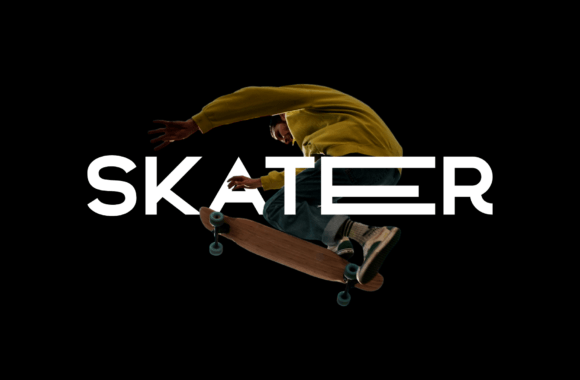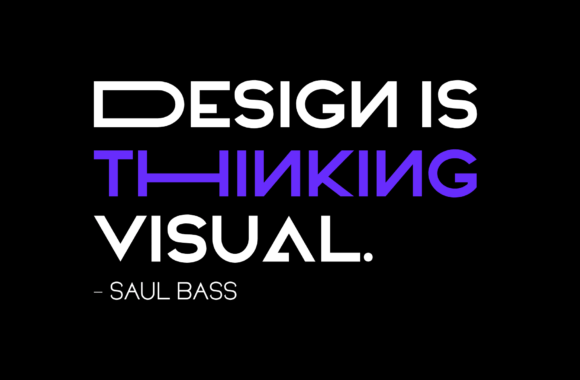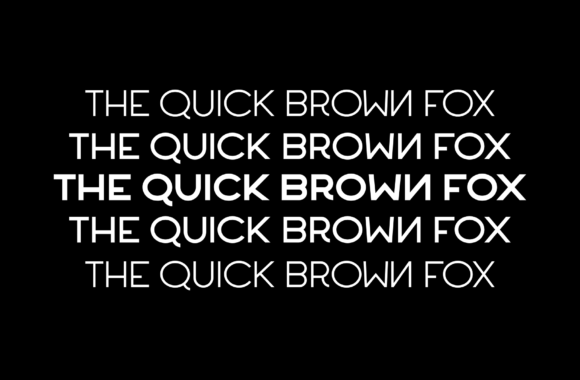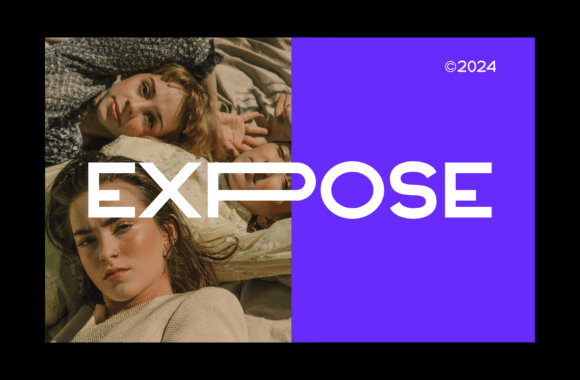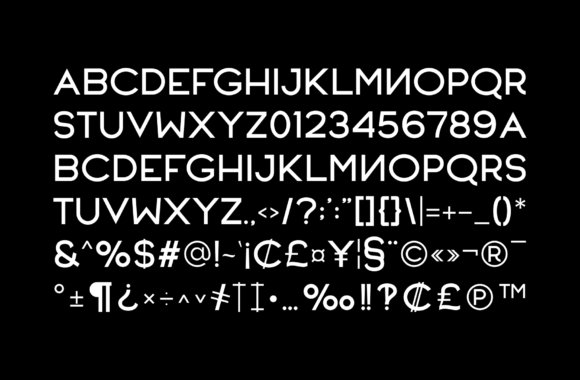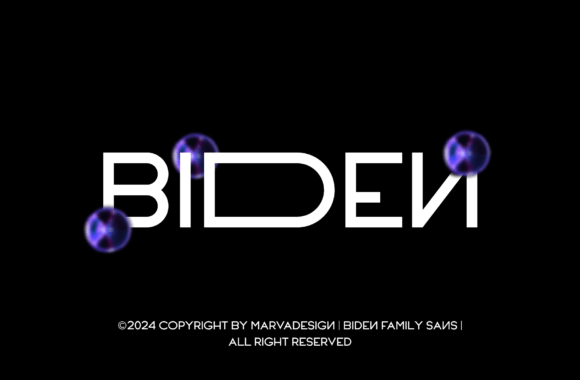
Introducing Biden Font: A Sophisticated Sans Serif for Modern Designs
In the world of typography, fonts play a crucial role in conveying messages, expressing emotions, and creating a lasting impression. For designers and crafters, finding the perfect font can be a daunting task. However, with the introduction of the Biden Font, a distinguished sans serif font, the search is over. This exceptional font combines the quintessential features of Futura with an added dash of sophistication, making it an ideal choice for modern designs.
A Font with Versatility: Three Distinct Styles
The Biden Font breaks the mold with three distinct styles – Light, Regular, and Bold – each offering a unique design twist. This versatility allows designers to choose the perfect style to suit their project’s requirements. Whether you’re working on a sleek title, a body text, or a dynamic design, the Biden Font has got you covered.
The Light Variant: Soft, Understated Charm
The Light variant of the Biden Font is inspired by Modern Family and emanates a soft, understated charm. Its slender contours ensure clarity while projecting elegance, making it perfect for designs that demand a subtle modern aura. This style flourishes in contexts where a delicate touch is required, such as in sleek titles or slender text. The Light variant is ideal for designers who want to add a touch of sophistication to their work without overpowering the content.
The Regular Variant: Stability and Lucidity
The Regular variant of the Biden Font is an evolution of the Light style, with a ripple higher in thickness. This style furnishes further stability and lucidity, making it particularly effective in body text or content that needs a balanced emphasis. Despite its enhanced boldness, the Regular variant assures seamless readability, allowing designers to create content that is both visually appealing and easy to read.
The Bold Style: Dynamic and Modern
The Bold style of the Biden Font is derived from Modern Family and boasts bolder and thicker contours. This style preserves its core essence of modernity, making it the quintessential choice for dynamic titles or designs that require a bold statement. The Bold style is perfect for designers who want to grab attention and create a lasting impression.
Key Features of the Biden Font
• Versatility: The Biden Font offers three distinct styles – Light, Regular, and Bold – making it suitable for a wide range of design projects.
• Sophistication: The font combines the quintessential features of Futura with an added dash of sophistication, making it perfect for modern designs.
• Readability: The Biden Font assures seamless readability, even in its boldest style, making it ideal for body text and content.
• Elegance: The font’s slender contours and modern design ensure elegance and clarity in every design.
Why Choose the Biden Font?
The Biden Font is an exceptional choice for designers and crafters due to its versatility, sophistication, and readability. Whether you’re working on a sleek title, a body text, or a dynamic design, this font has the perfect style to suit your needs. With the Biden Font, you can:
• Create modern designs with a touch of sophistication
• Enhance readability and clarity in your content
• Grab attention with bold and dynamic titles
• Add elegance and charm to your designs
In conclusion, the Biden Font is a distinguished sans serif font that offers a unique blend of sophistication, versatility, and readability. With its three distinct styles – Light, Regular, and Bold – this font is perfect for designers and crafters who want to create modern designs that make a lasting impression. Whether you’re working on a sleek title, a body text, or a dynamic design, the Biden Font is an exceptional choice.